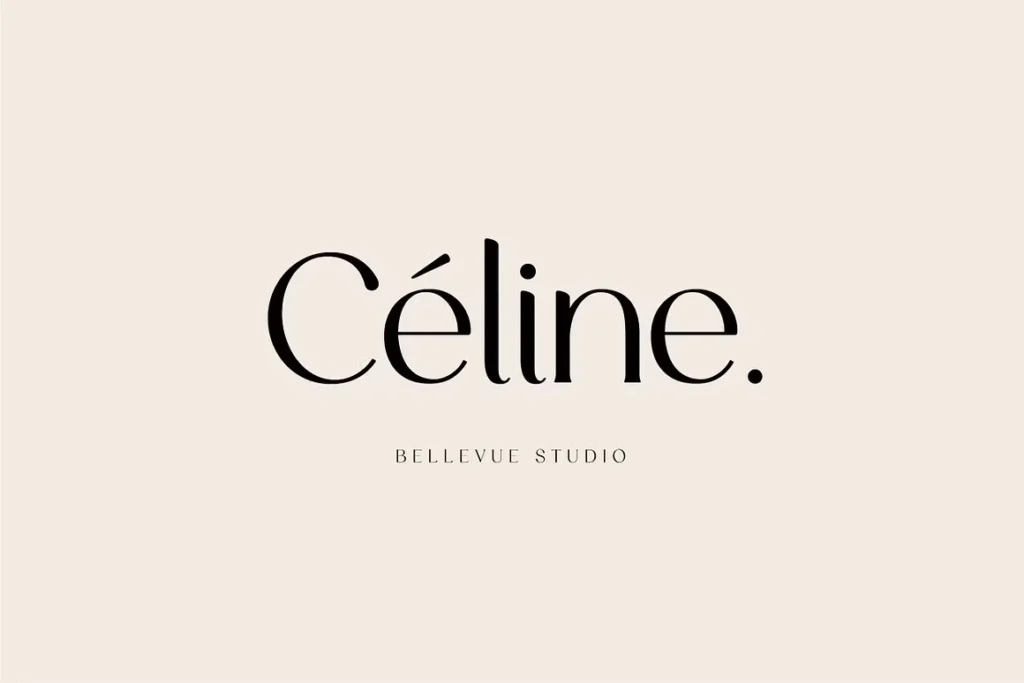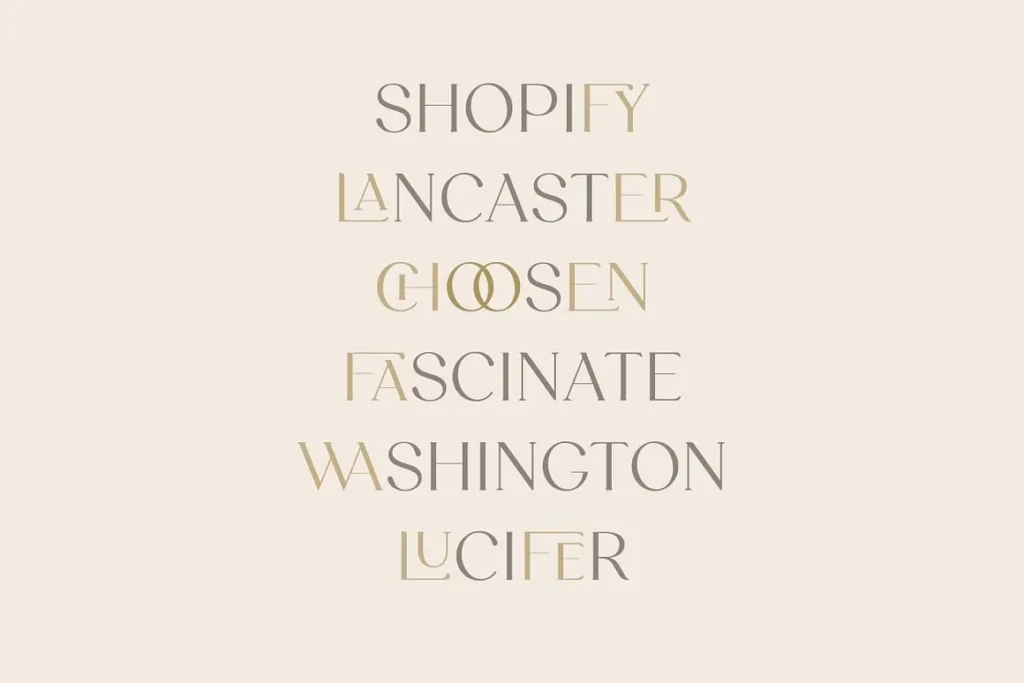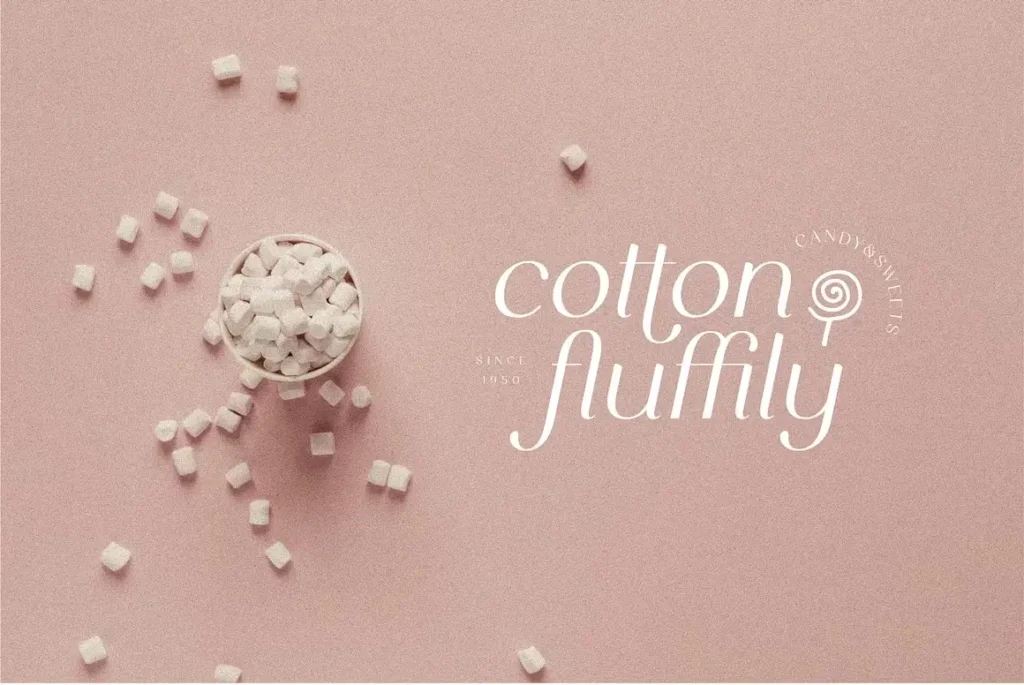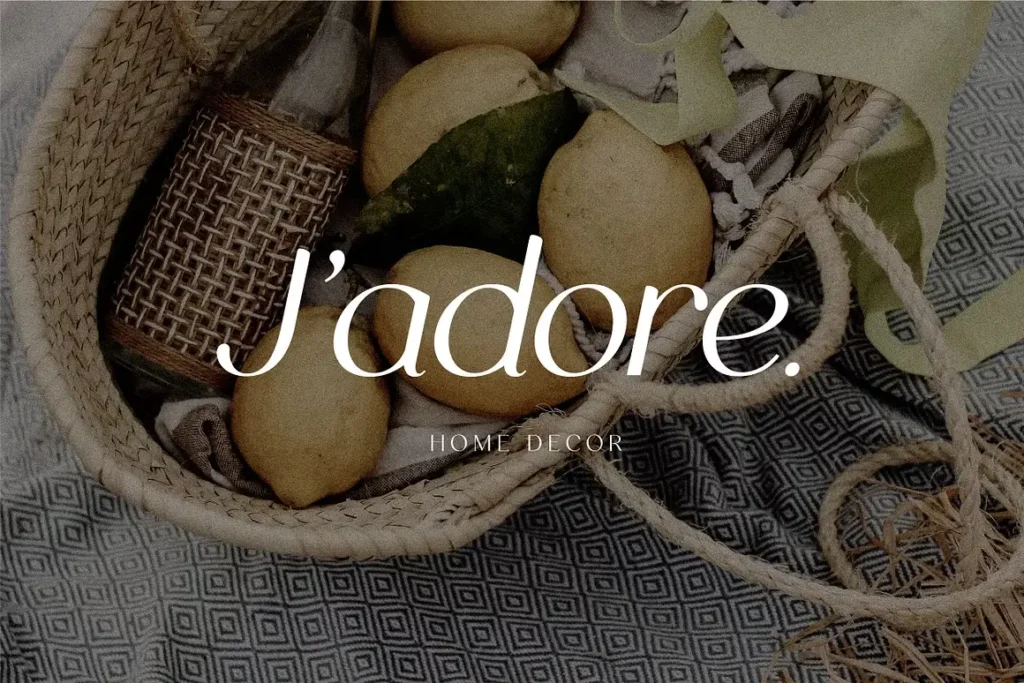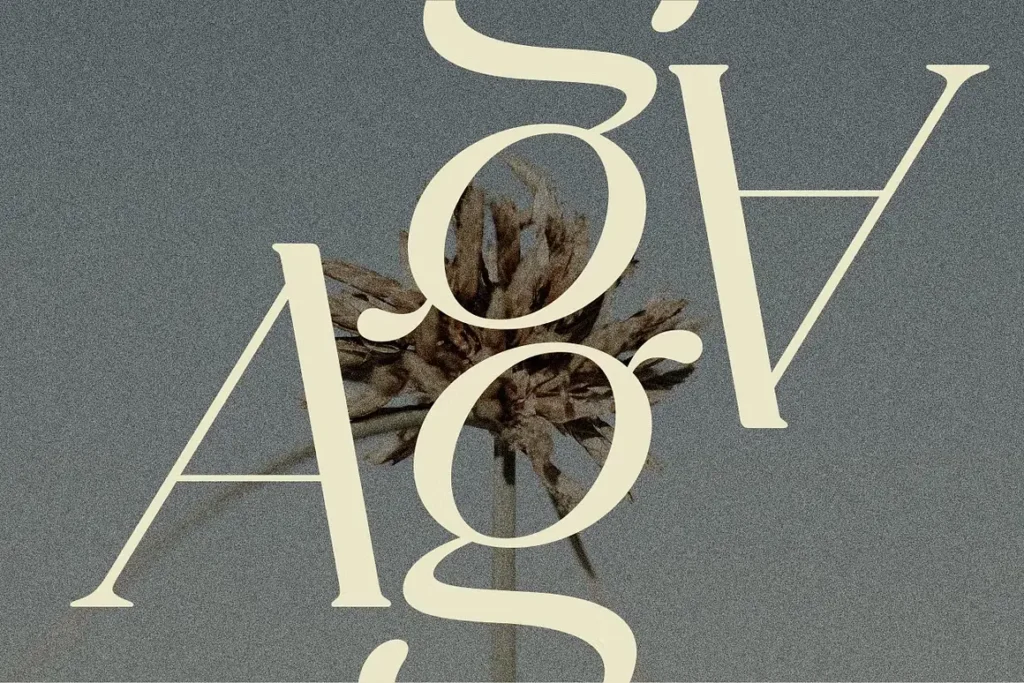
Celine Font
About Celine Font
Celine is a beautiful serif font from Bellevue Studio, a boutique type foundry. They are known for creating typefaces with distinct personality. Celine combines clean, modern design with delicate details, giving it a unique character. Each letter features subtle serifs that add traditional flair without feeling outdated.
What makes Celine special is its blend of serif elegance and modern proportions. The designers spent time refining each curve and connection to create a cohesive typeface family. Unlike many serif fonts that seem formal, Celine has a playful touch.
This font works well in both large displays and smaller text. Its x-height and spacing enhance readability while keeping visual interest. The chic design includes subtle stroke weight variations, giving text a lively, organic feel on the page.
Bellevue Studio has created a truly versatile serif typeface. It feels both classic and current. This balance is valuable for brands aiming to convey heritage and relevance in their visual identity.
Features of Celine Font
Language support is impressive. It covers all European languages and includes special characters like á. It also supports Vietnamese, which many premium fonts lack. This makes Celine perfect for international brands and multilingual publications.
The font’s ligature system connects specific letter pairs elegantly. These ligatures improve readability and add a touch of sophistication to your text. OpenType functionality works smoothly in Adobe programs like Illustrator, InDesign, and Photoshop. Designers can easily access these special features.
Celine font shines in branding projects that need sophistication and personality. Its elegant serifs make it ideal for logos, especially in fashion, hospitality, and lifestyle sectors. These brands seek a refined look, and Celine delivers.
The font also enhances social media content. Instagram captions, Pinterest graphics, and Facebook posts gain instant elegance with Celine. It stays crisp and clear, even in smaller sizes on screens.
Print materials see an upgrade with this typeface. Business cards, brochures, and packaging designs all benefit from its refined style. Magazine layouts and editorial spreads look stunning with Celine used for headlines and pull quotes.
Wedding stationery designers will love how this font adds elegance to invitations and programs. The alternate characters allow for customization. This gives each project a unique touch while maintaining typographic harmony.
Product packaging is another strong area for this versatile typeface. From cosmetics to specialty foods, Celine gives products a premium feel without overpowering the design. The serif details instantly convey quality and craftsmanship.